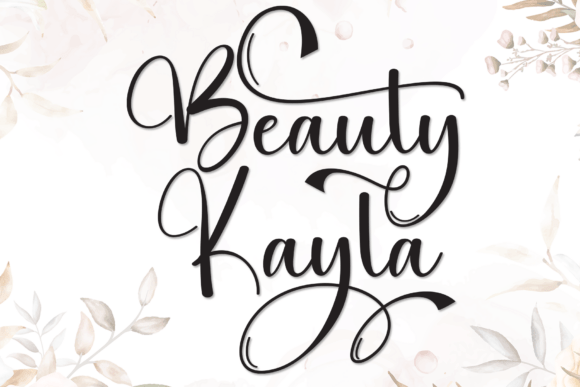
Welcome the Whimsy of Beauty Kayla Font into Your Design
There’s something magical about sitting at your desk, surrounded by papers, pencils, and a cup of steaming coffee, as the ideas start flowing. You’re brainstorming a new project, and you need a font that captures the essence of your creative vision. That’s when you stumble upon the perfect companion – Beauty Kayla Font. This delightful display font is infused with a playful spirit, making it an ideal choice for designers seeking to add a light-hearted flourish to their designs.
With Beauty Kayla Font, you can compose whimsical wedding invites, adorable greeting cards, or garnish any creation requiring a dose of fun. Its spontaneous elegance and effortless appeal make it a valuable asset for designers. Whether you’re working on a project that needs a touch of sweetness or a dash of playfulness, this font is sure to deliver.
Beauty Kayla Font Key Features
- Unique Characteristics: This font features a unique blend of modern and elegant script styles, making it ideal for creative and artistic designs.
Beauty Kayla Font Review
Overall, I found the Beauty Kayla Font to be a decent choice for certain design projects, but it has its limitations.
- Feminine and elegant feel, perfect for beauty and lifestyle brands.
- Wide range of languages supported, making it suitable for international projects.
- Highly legible and readable, even at smaller font sizes.
- May not be the best choice for modern or tech-savvy brands, as it has a more traditional feel.
- Some users may find the font too ornate or over-embellished, which can be distracting.
- Lack of bold and italic font styles may limit its versatility.
The Beauty Kayla Font is a solid choice for designers who need a feminine and elegant font for beauty and lifestyle projects. However, it may not be the best fit for more modern or tech-focused brands. With some limitations in terms of font styles and versatility, it’s essential to weigh the pros and cons before deciding to use this font in your design project.
The Beauty Kayla Font is ideal for use in beauty and wellness branding, marketing materials, and social media graphics. It’s also suitable for use in fashion, lifestyle, and travel designs.